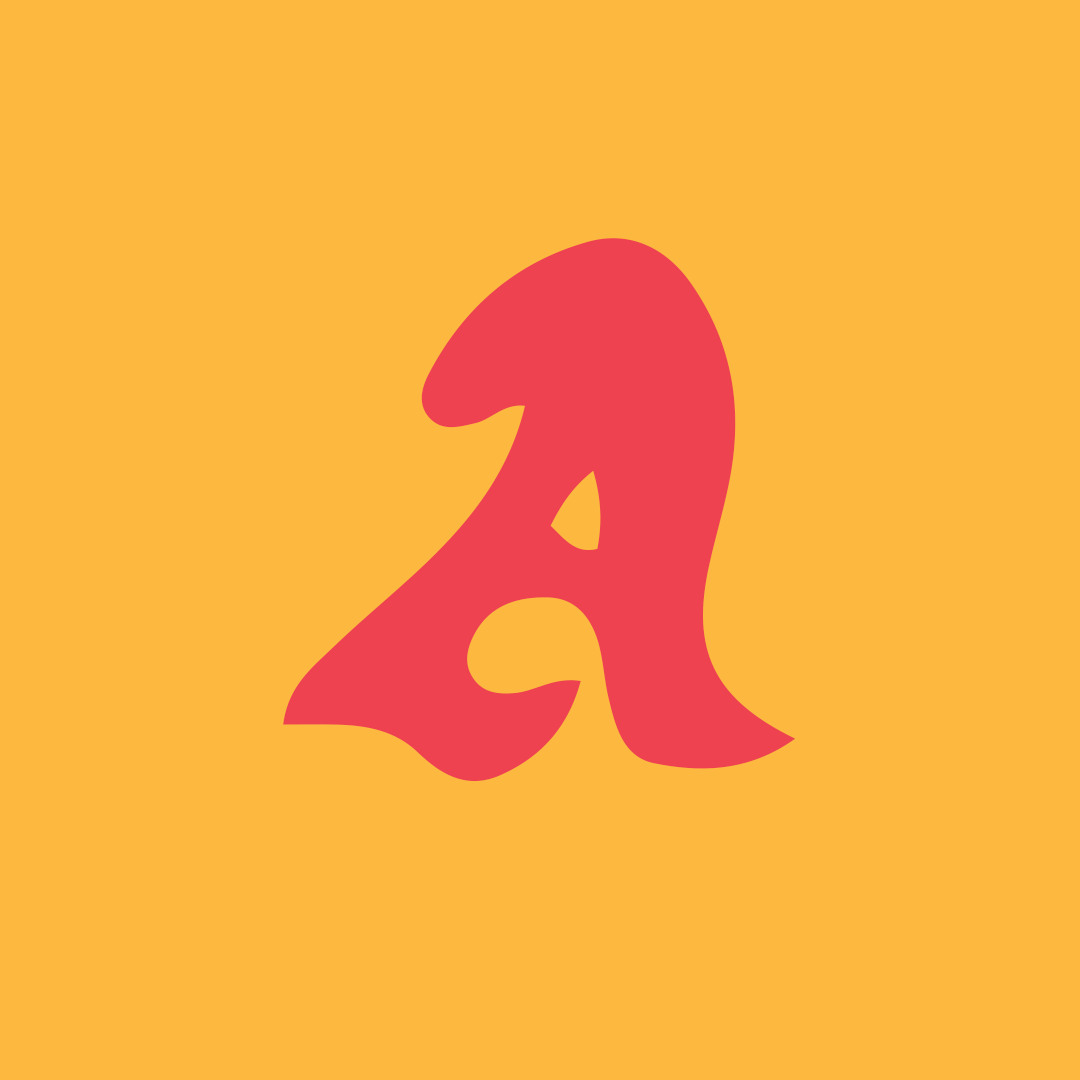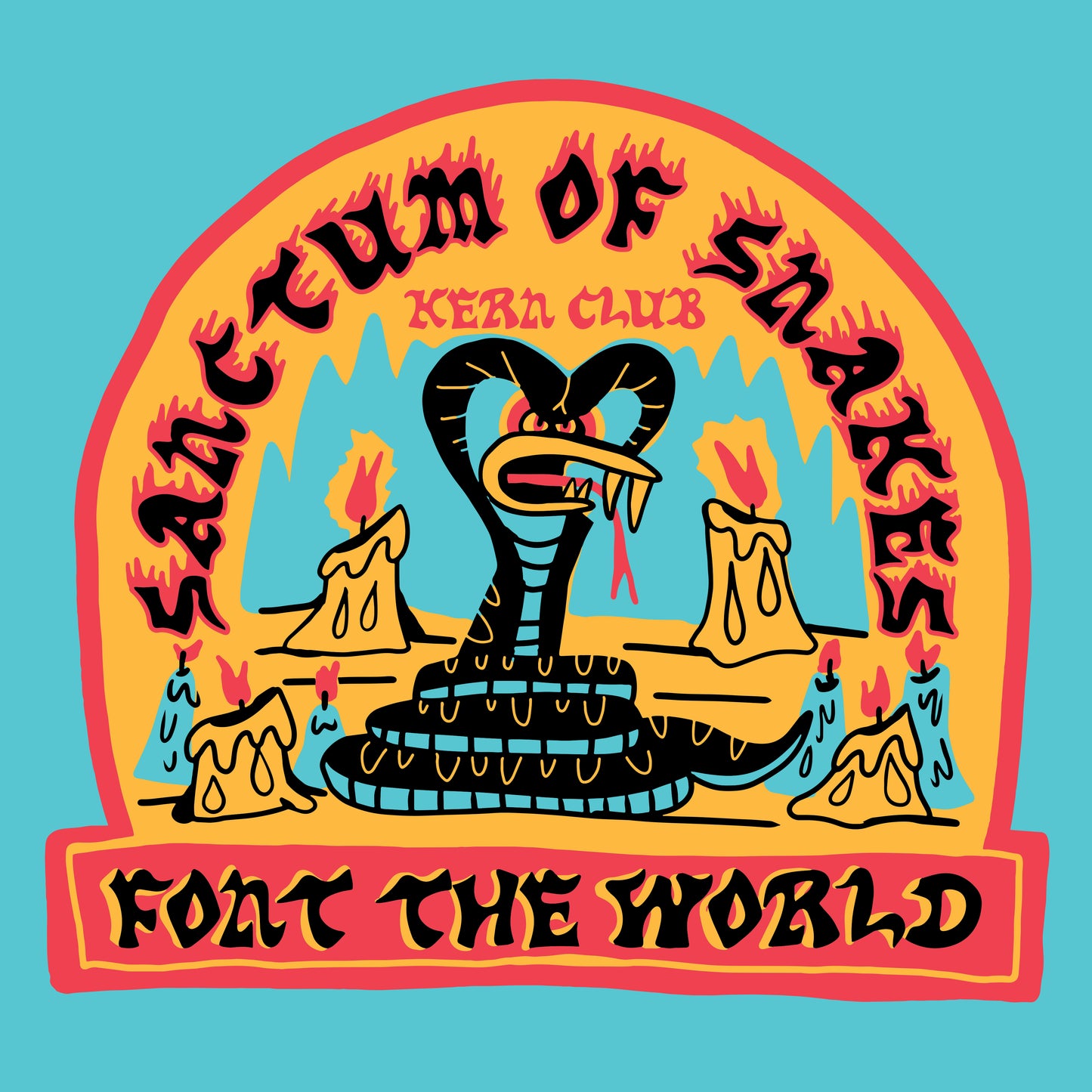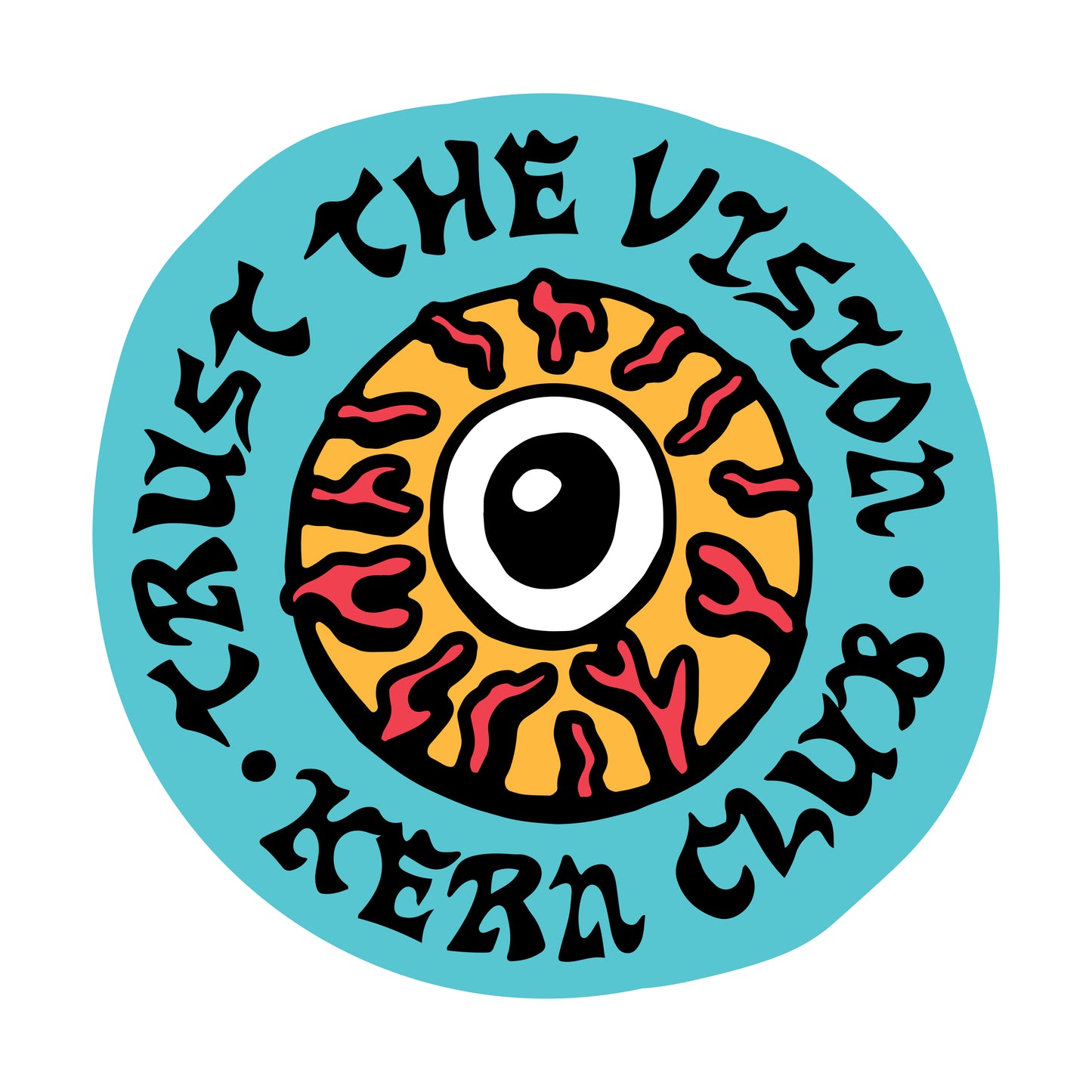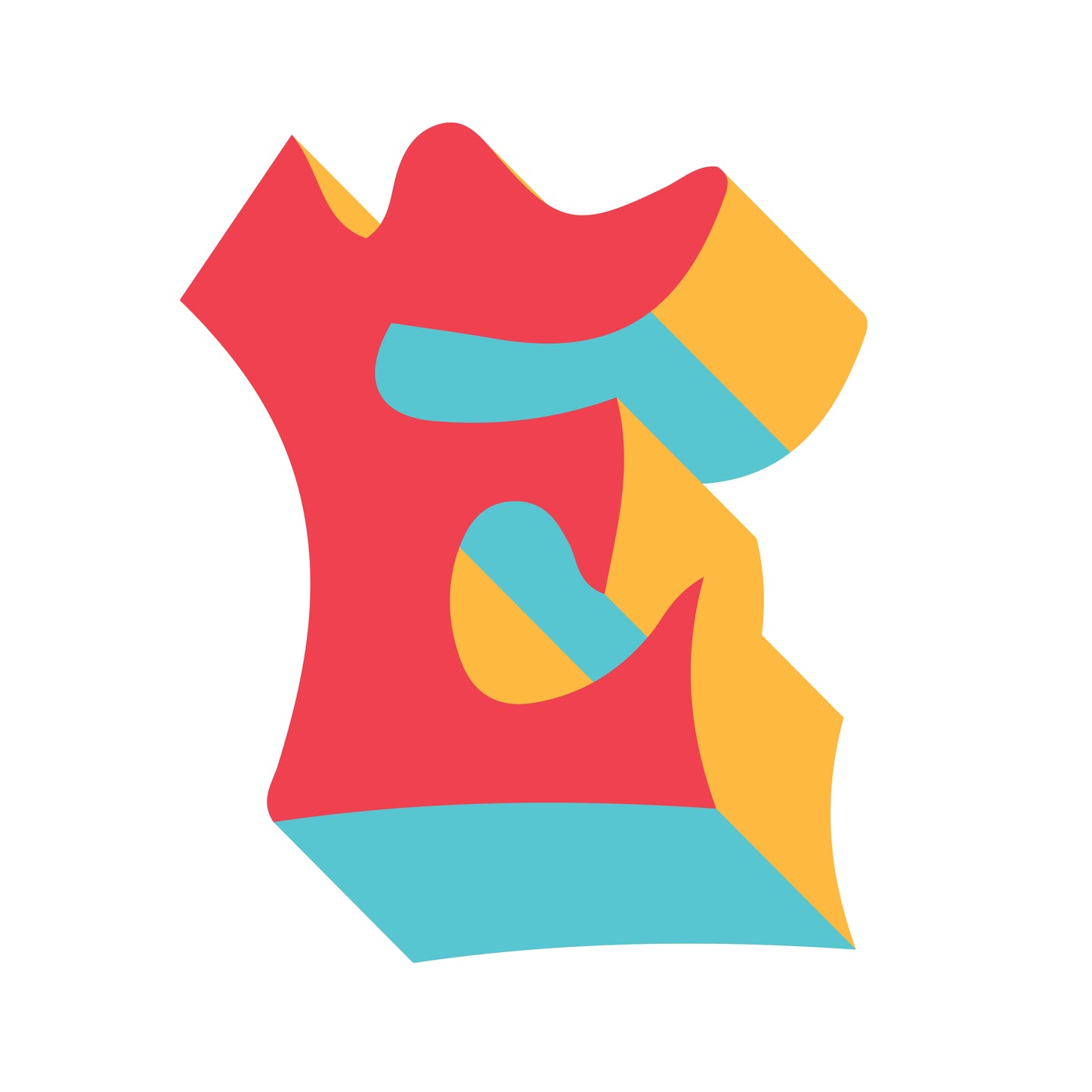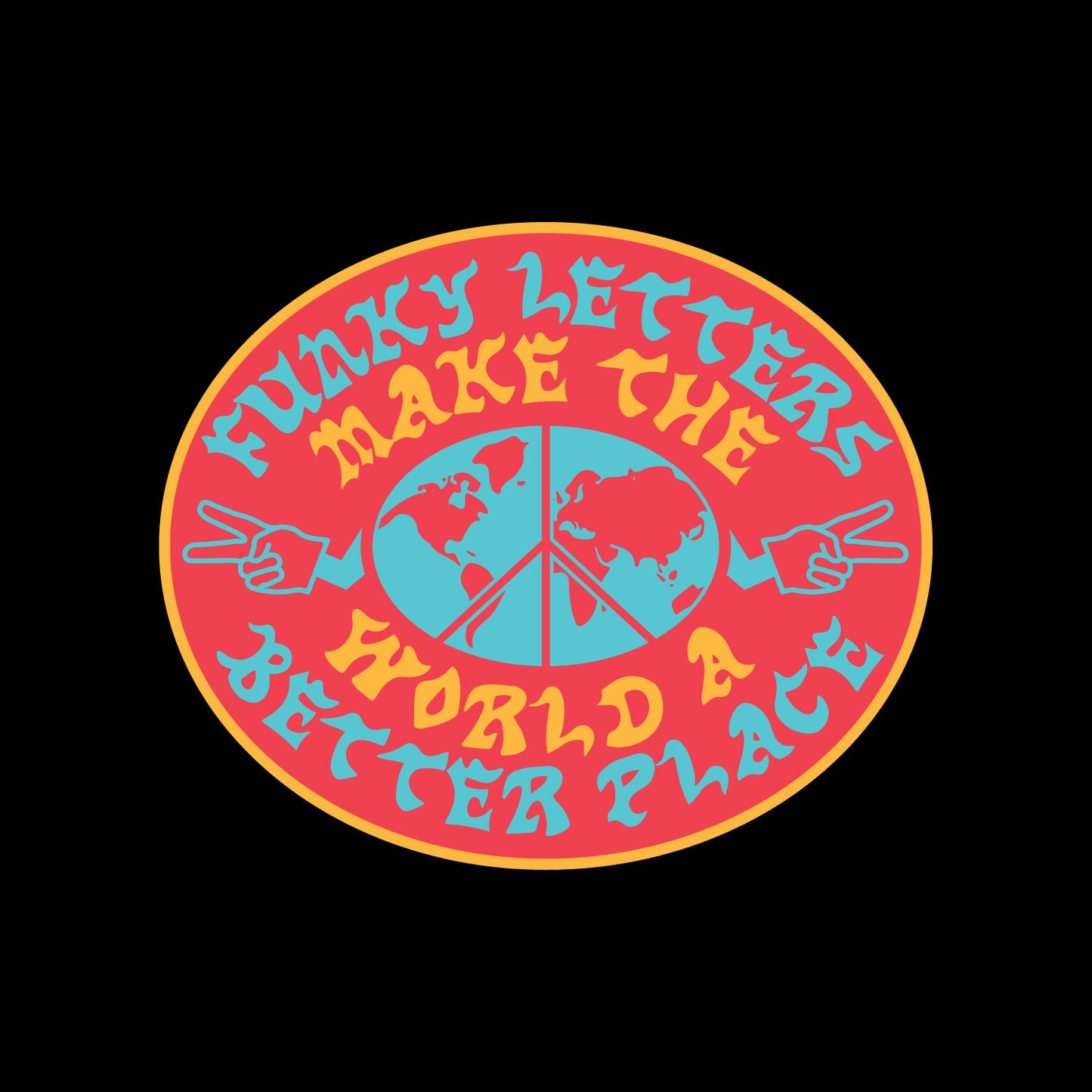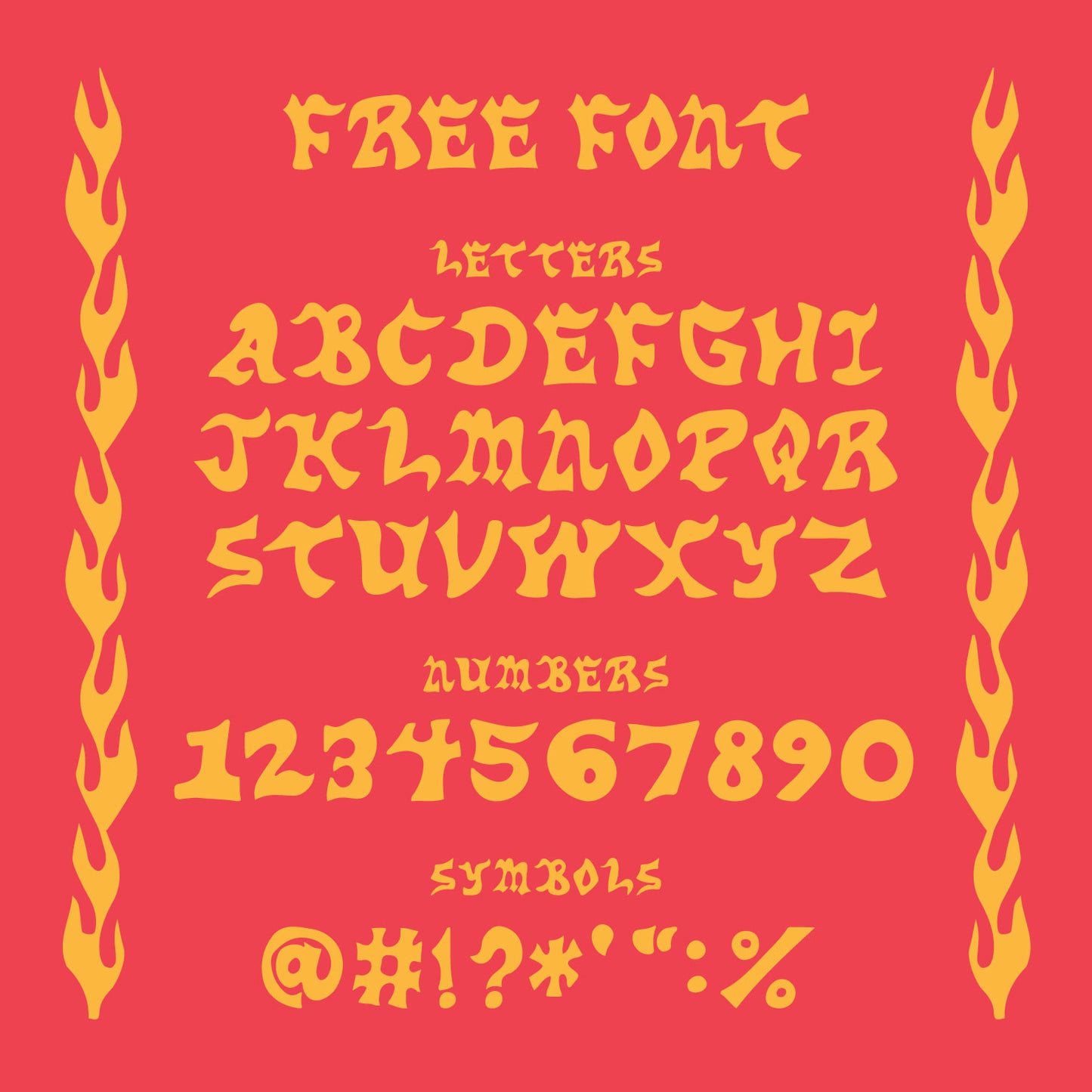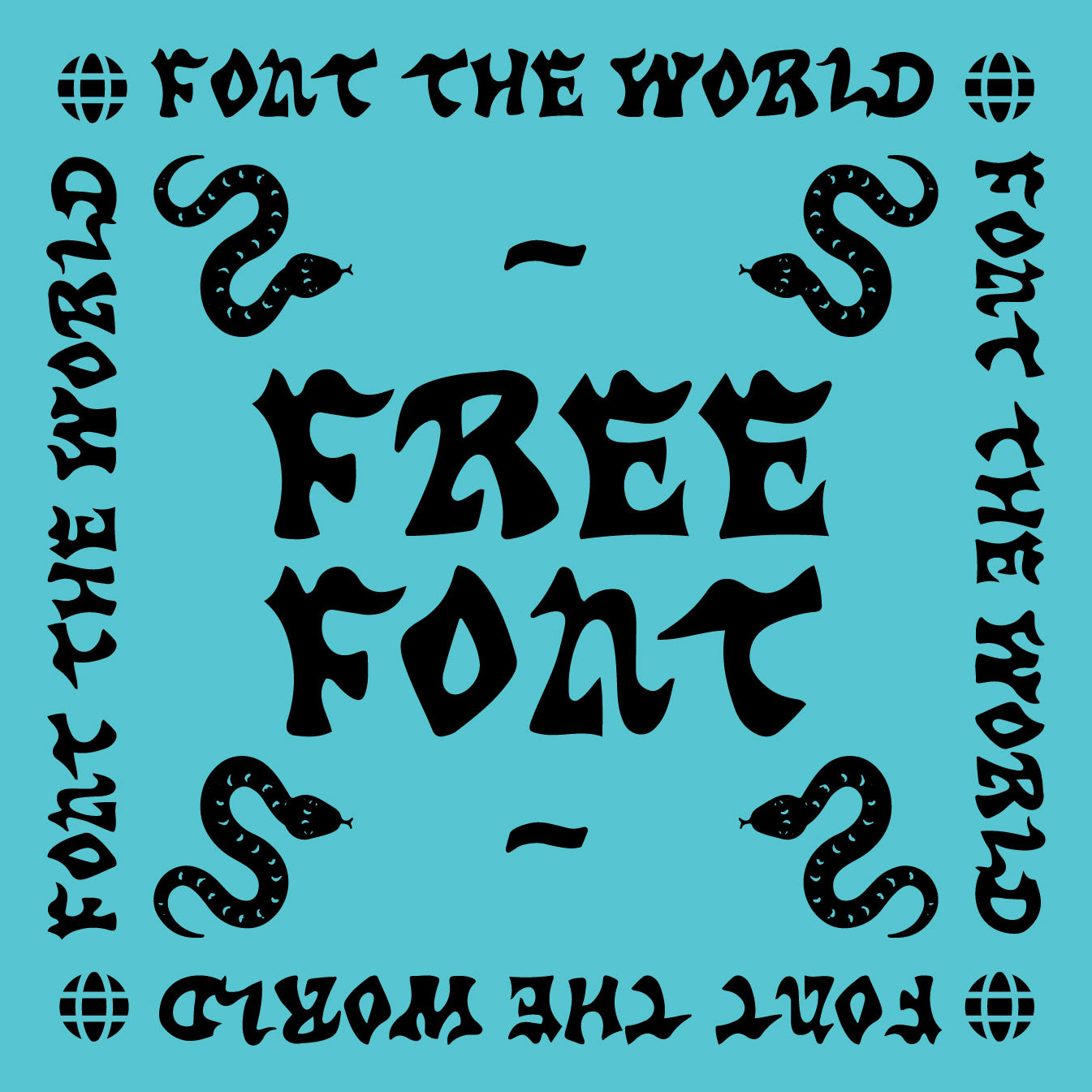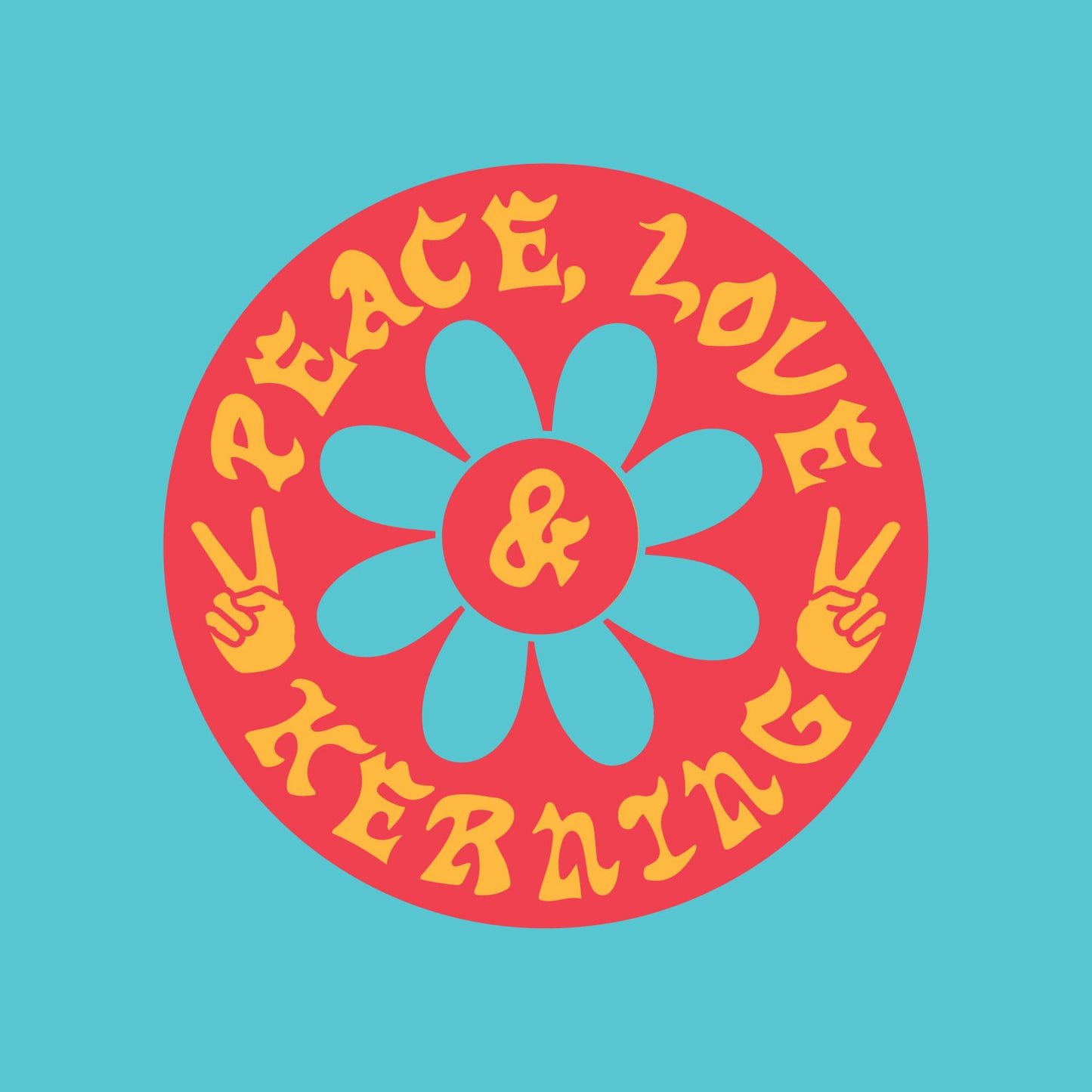
Sanctum of Snakes Font
This font is cursed, and chooses who it will work for. Take your chance and hopefully it will work for you!
Hand style old english font designed by Cheatin Snakes